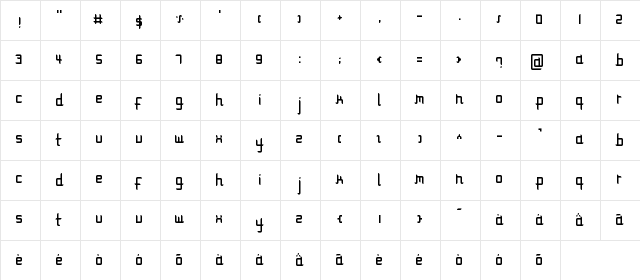
Modulare 1 Regular Free Font
Modulare 1 Regular
Designer: rolldigo
Design Context for Modulare 1
Modulare 1 is a composed and adaptable typeface that performs quietly and consistently across a wide range of design contexts.